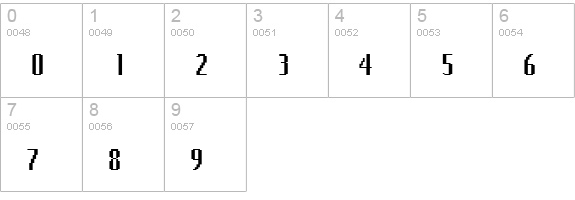
BitsExtended Font Details
BitsExtended font is a modern and stylish typeface that brings a touch of sophistication to any design project. With its clean lines and unique character shapes, BitsExtended is perfect for both digital and print applications. This versatile font is ideal for creating eye-catching logos, branding materials, websites, and more. What sets BitsExtended apart is its seamless blend of classic elegance and contemporary flair. The sleek, elongated letterforms exude a sense of professionalism and refinement, making this font a great choice for businesses and individuals looking to make a lasting impression. Best of all, BitsExtended is available for free download at FontsMarket.com. Whether you're a designer looking to add a new font to your collection or a business owner in need of a fresh look for your marketing materials, BitsExtended is the perfect choice. Download it today and elevate your designs with this exceptional font.